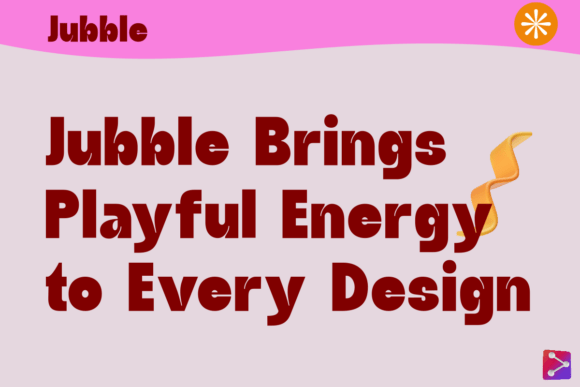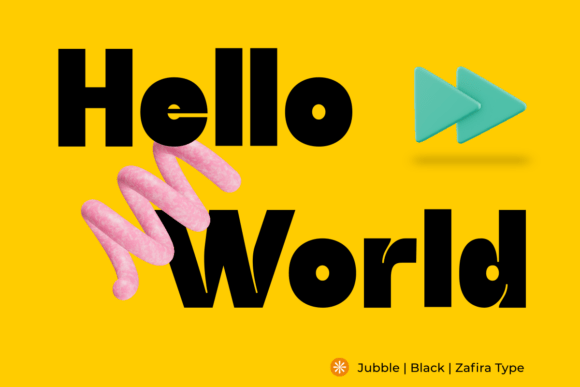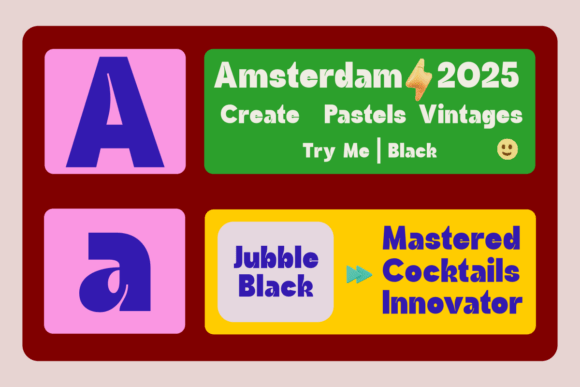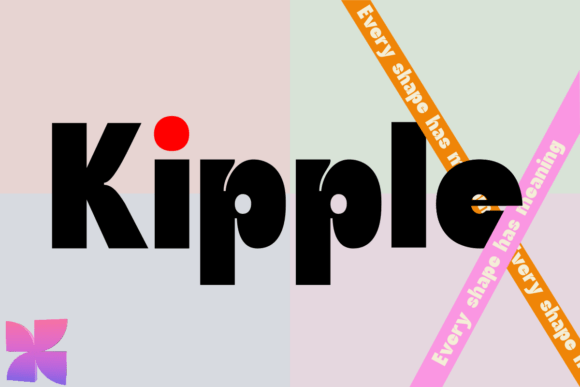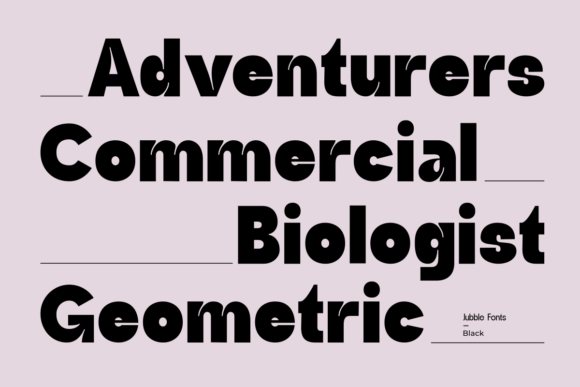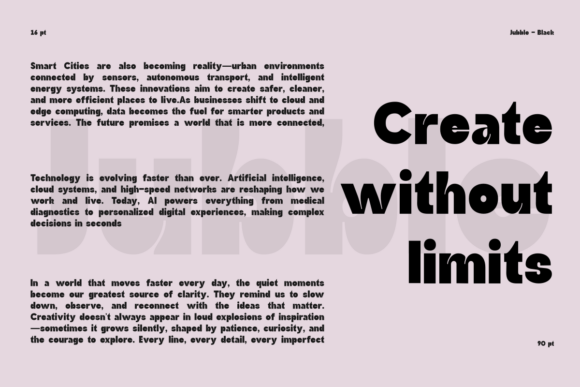
Introduction to Jubble Font
As designers, we’ve all been there – staring at a blank canvas, waiting for inspiration to strike. For many of us, it’s the discovery of a new font that sparks that creative spark. And today, we’re excited to introduce you to the Jubble Font, a game-changing design resource that’s sure to elevate your next project. With its playful, chunky shapes and distinct curves, Jubble Font is a true standout in the world of typography.
Whether you’re working on a high-profile branding campaign or a creative project that requires a bold, optimistic voice, Jubble Font is the perfect tool for the job. Its unique aesthetic is not only visually striking but also highly memorable, making it an invaluable asset for designers looking to leave a lasting impression.
And the best part? Jubble Font is available for free download, allowing you to experiment with its endless possibilities on a transparent background. With its Black weight ensuring maximum visibility, this font is a must-have for any designer looking to add a touch of modern sophistication to their work.
Key Features of Jubble Font
- High-quality design resource ideal for creative projects, including logos, graphics, and typography.
- Comes with a transparent background, allowing for seamless integration into various design environments.
- Features a unique, modern design with a wide range of character sets and language support.
- Resolution-independent, making it suitable for use in various sizes and resolutions.
- Includes a comprehensive character set, including uppercase and lowercase letters, numbers, and special characters.
- Designed to be highly legible and visually appealing, making it an excellent choice for various creative projects.
Honest Review: Jubble Font
As a designer, I’m always on the lookout for high-quality design resources to elevate my creative projects. The Jubble Font caught my eye with its unique, quirky feel that’s perfect for adding some personality to your designs.
- ✨ Unique character set: The Jubble Font boasts a distinctive character set that’s sure to stand out in any design.
- ✨ Transparent background: The font’s transparent background makes it easy to work with, allowing for seamless integration with other design elements.
That being said, I do have a few reservations about the Jubble Font.
- ⚠️ Limited language support: The font only supports a limited number of languages, which may be a drawback for designers working on international projects.
- ⚠️ Not ideal for body text: While the Jubble Font is perfect for headings and titles, it may not be the best choice for body text due to its irregular letterforms.
Overall, I think the Jubble Font is a great addition to any designer’s toolkit. Its unique character set and transparent background make it a valuable resource for creative projects. Just be aware of its limitations, and use it wisely.
Jubble Font is a high-quality, versatile design resource ideal for creative projects. Its transparent background makes it easy to customize and integrate into various design applications.
Tips for Getting the Most Out of Jubble Font
Use Jubble Font to add a touch of elegance to your designs. Experiment with different font sizes and styles to create a unique look.
Jubble Font is ideal for use in business cards, invitations, and other creative projects where a high-quality, custom font is desired.
Can I modify the Jubble Font to suit my creative project needs?
Yes, the Jubble Font is a highly customizable design resource. You can use it as is or modify it to suit your creative project needs. However, please note that any modifications should be done in a way that maintains the font’s original integrity and quality.
Does the Jubble Font have a transparent background?
Yes, the Jubble Font has a transparent background, making it easy to use on any design surface. This feature allows for seamless integration with other design elements and backgrounds.